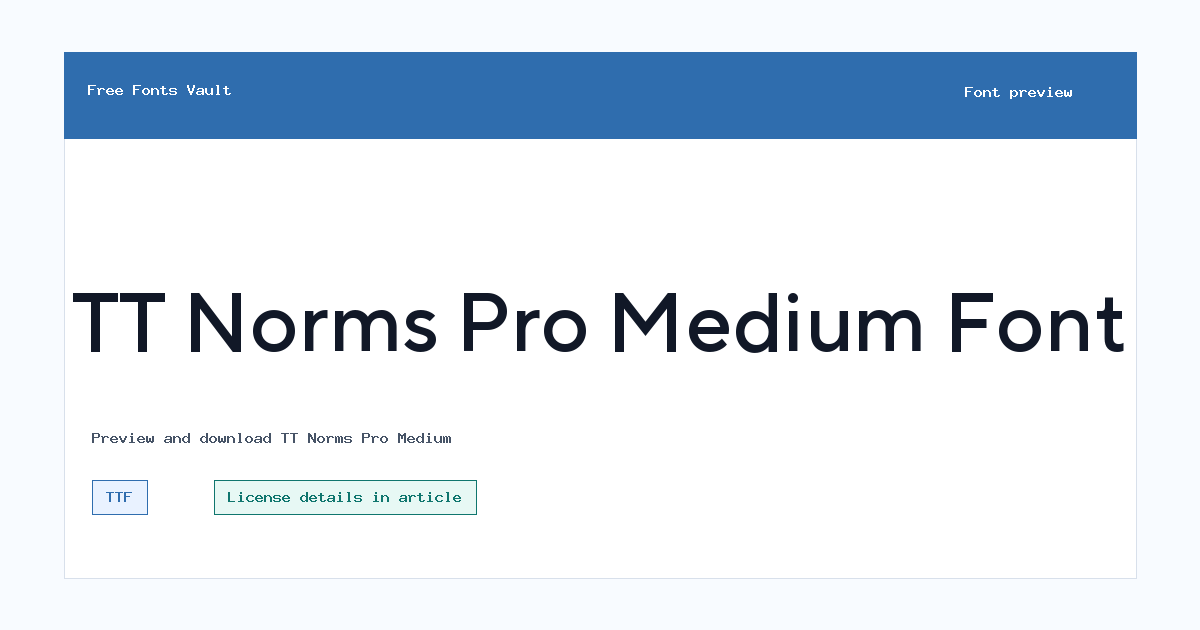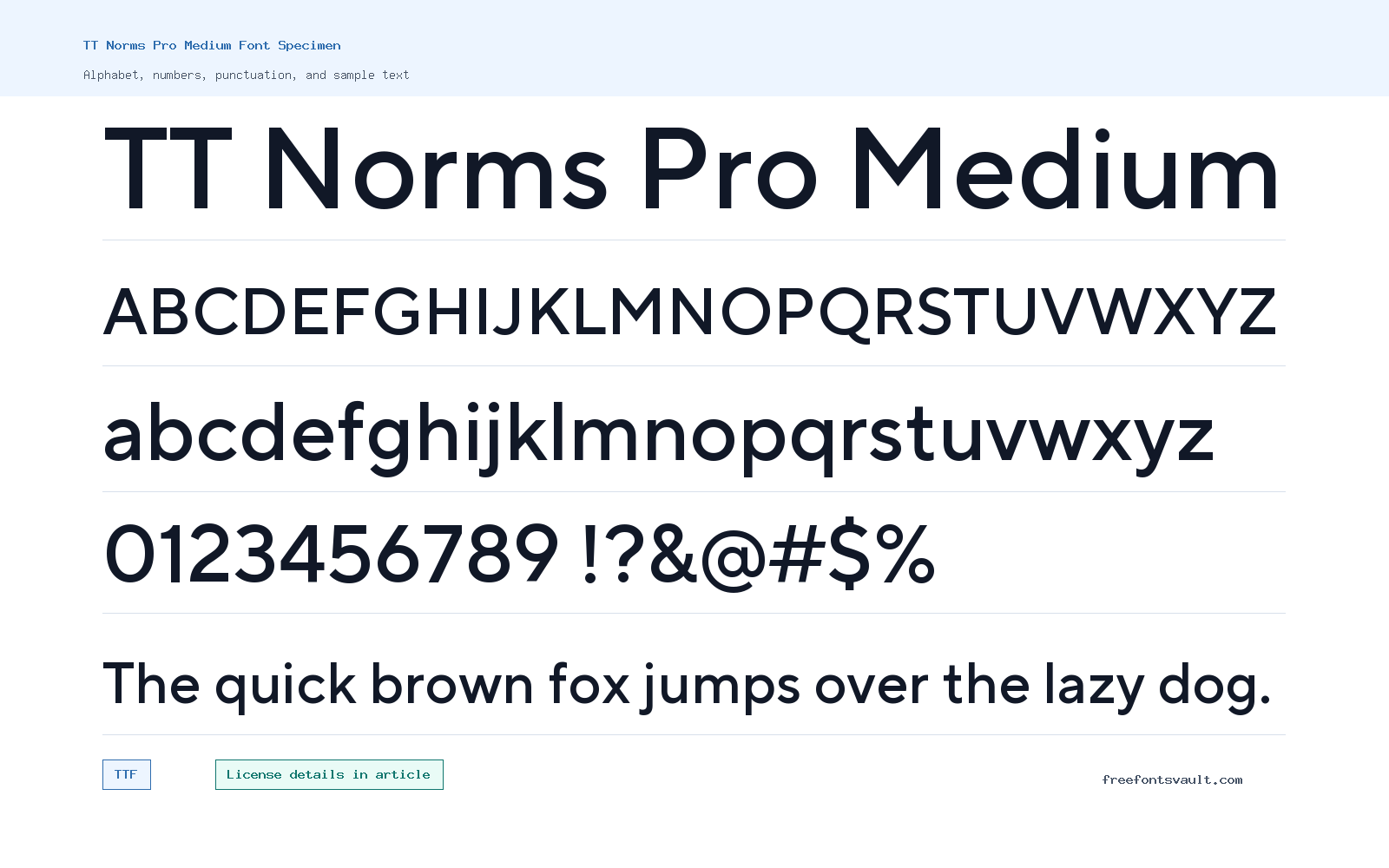
TT Norms Pro Medium
- Designer TypeType
- Foundry TypeType
TT Norms Pro Medium is a clean, 500-weight sans serif from TypeType. It sits between regular and bold, making it useful when you need text that feels steady and clear without becoming heavy.
About TT Norms Pro Medium
TT Norms Pro is presented by TypeType as a geometric sans serif family, and the Medium style gives that system a balanced middle weight. The letterforms are neutral and modern, so the font can work well in brand systems, app screens, editorial layouts, presentations, navigation labels, and short blocks of interface text. The Medium weight is especially helpful for headings, section labels, buttons, cards, and emphasis within body copy.
- Neutral geometric sans serif style suited to clear modern layouts
- Part of the larger TT Norms Pro family from TypeType
- Useful middle weight for headings, interface labels, buttons, and presentation text
- Brand identity mockups and style explorations
- UI screens, app layouts, dashboards, and website previews
- Editorial headings, decks, reports, and clean typographic systems
- Short text where a regular weight feels too light and bold feels too strong
TT Norms Pro Medium is by TypeType, with TypeType also listed as the foundry.
What weight is TT Norms Pro Medium?
The listed weight is 500, commonly used as a medium weight between regular and bold.
What is TT Norms Pro Medium good for?
It works well for modern headings, UI labels, buttons, presentation text, editorial layouts, and brand mockups where you want a clean sans serif with moderate emphasis.